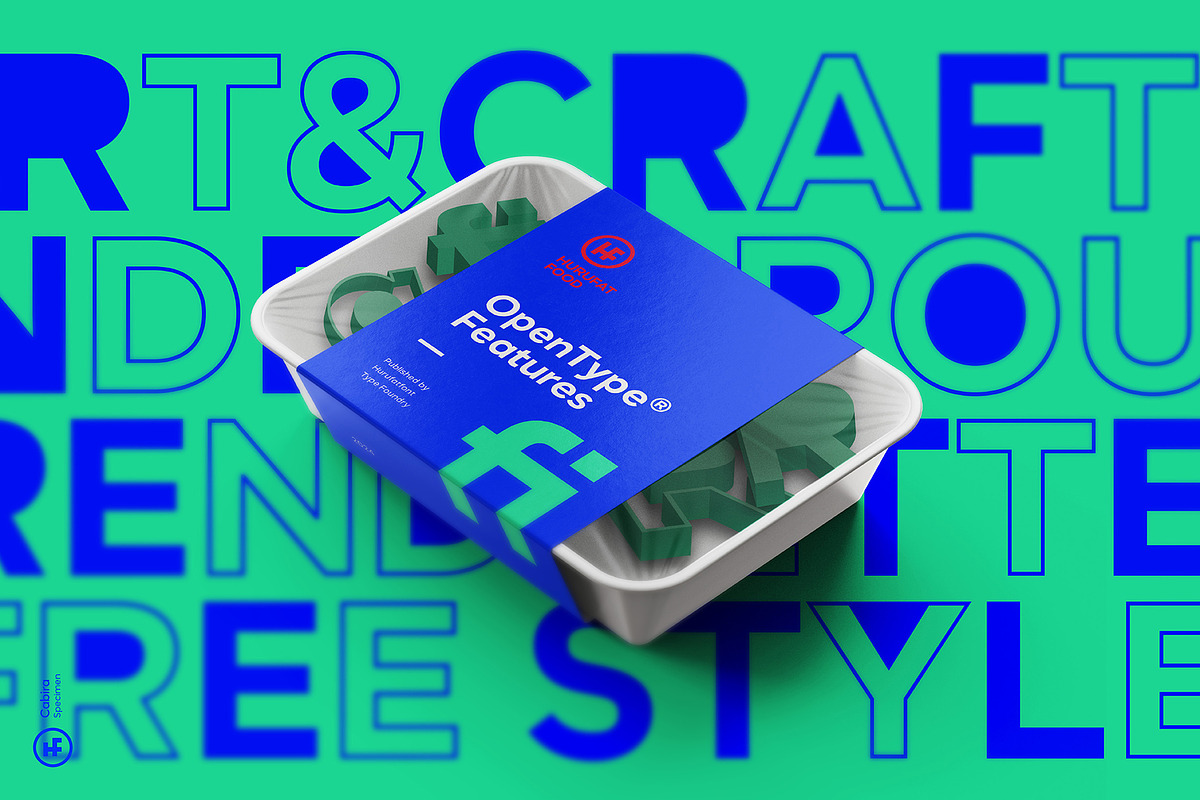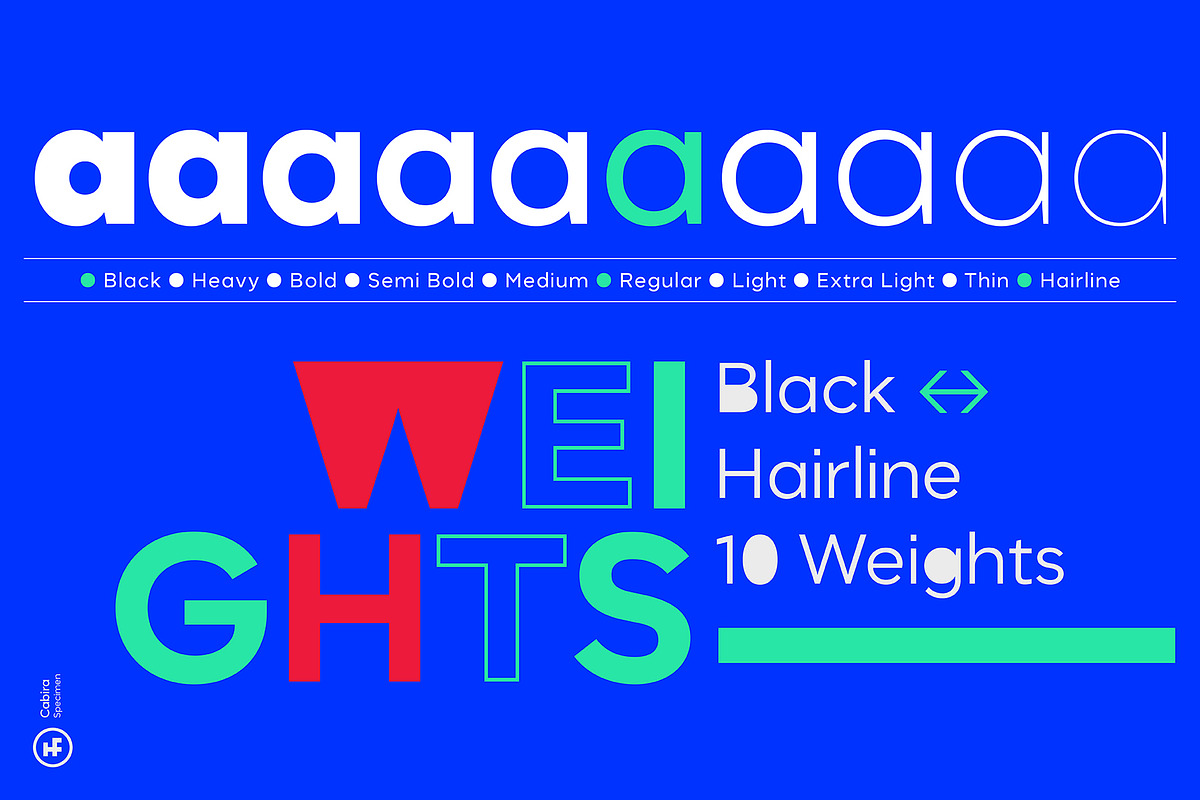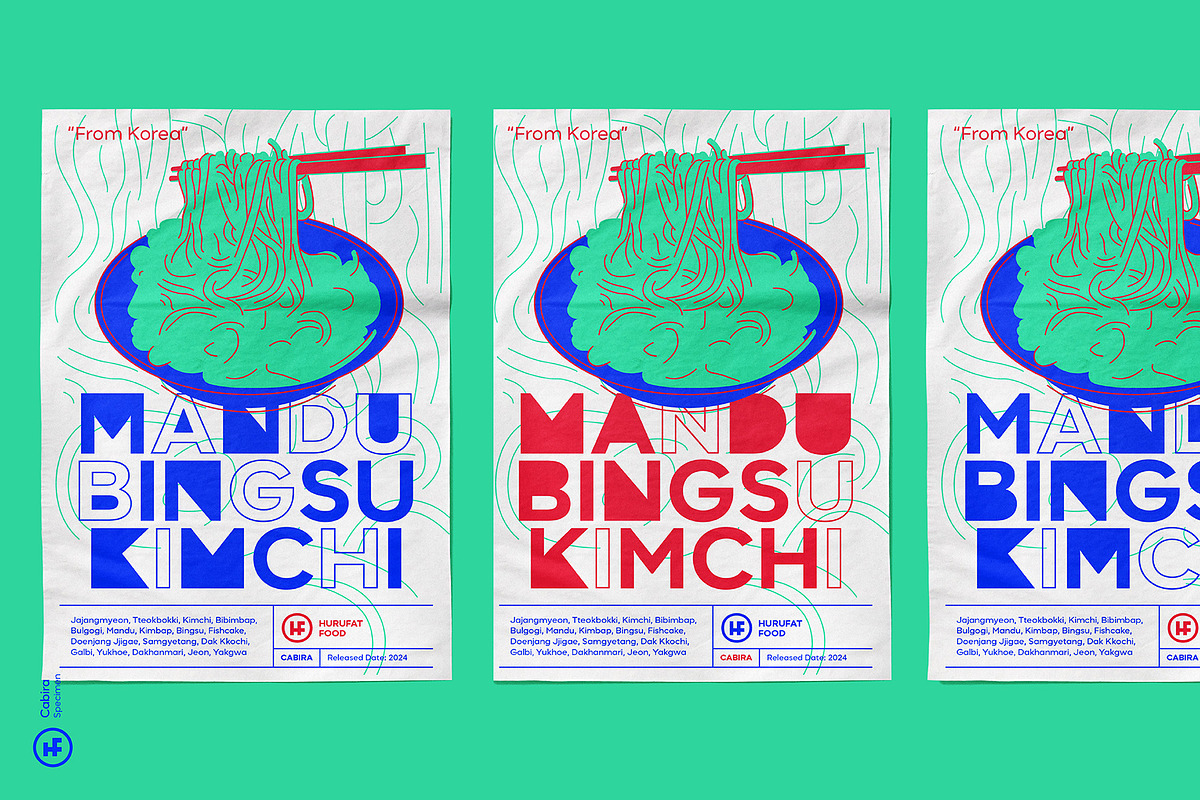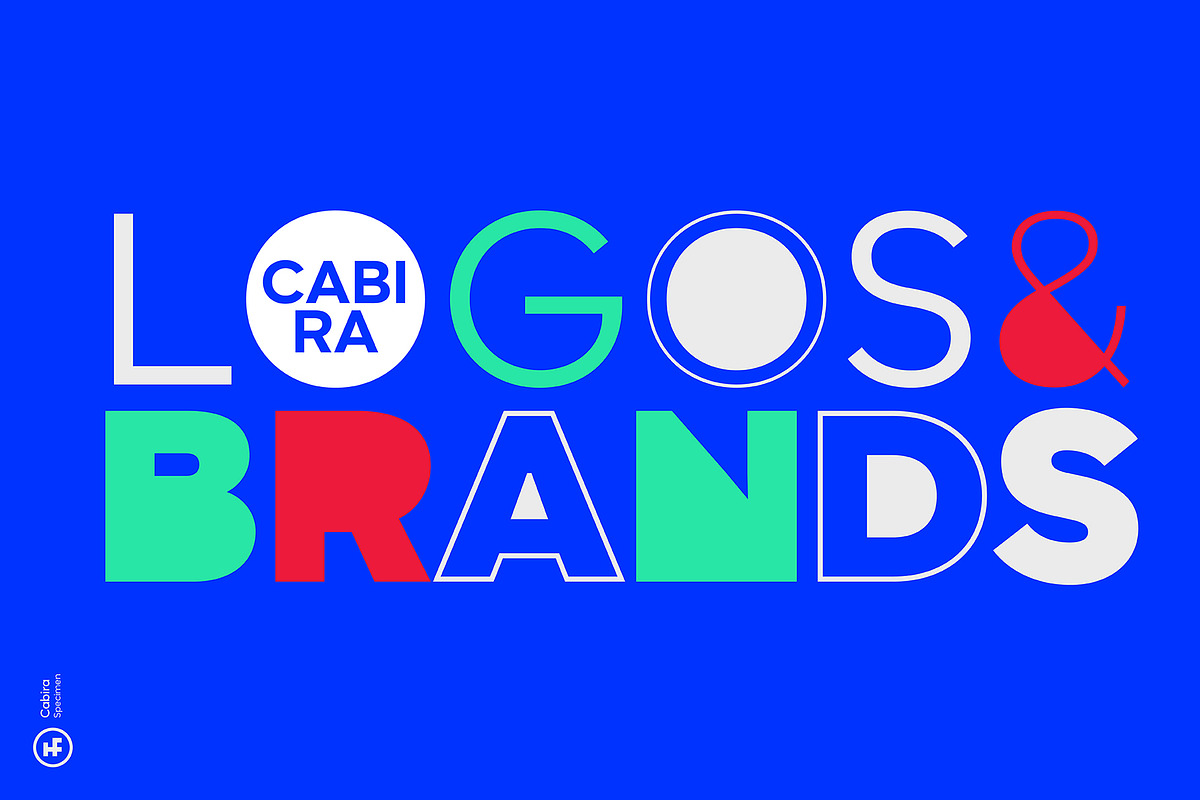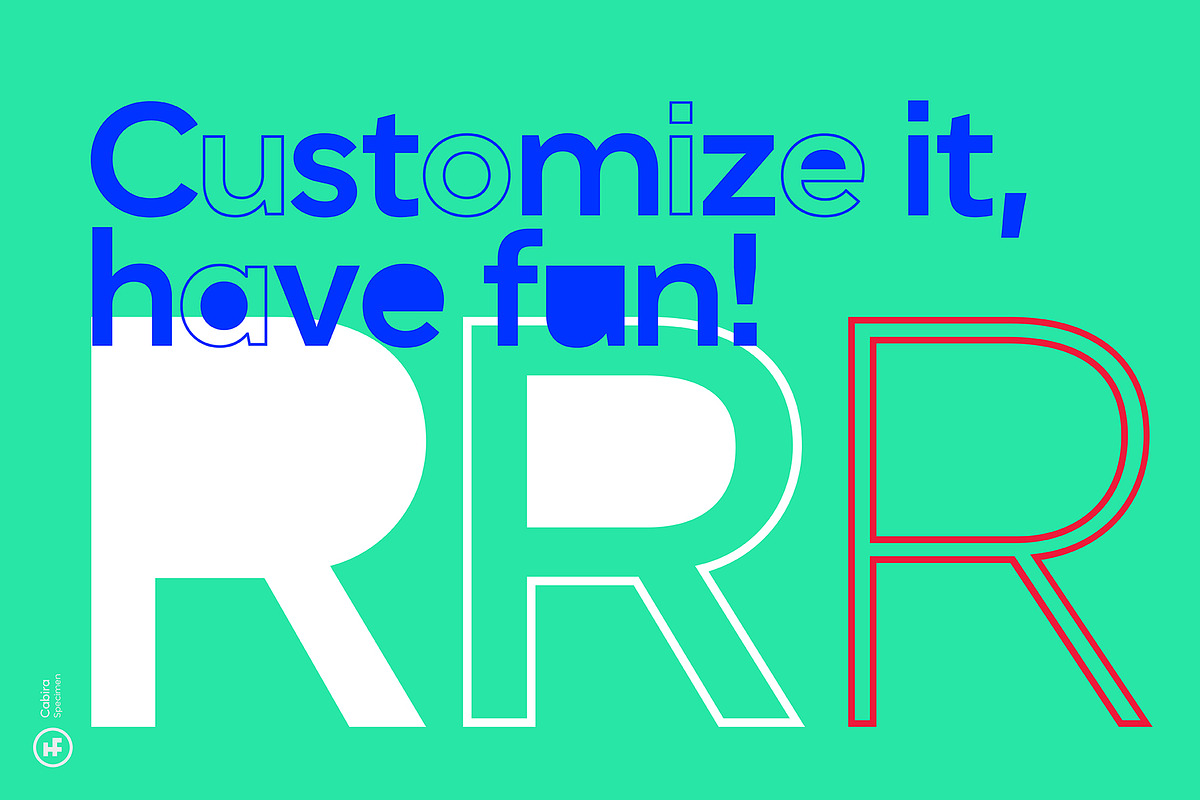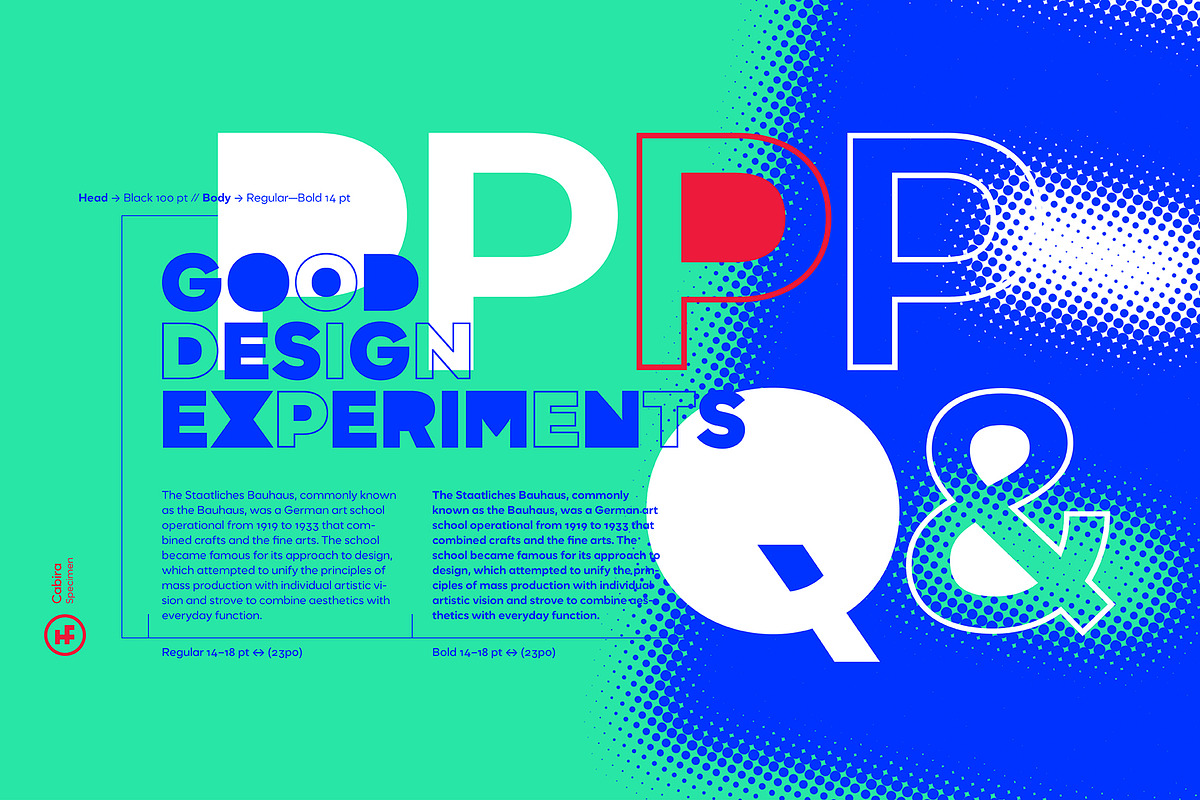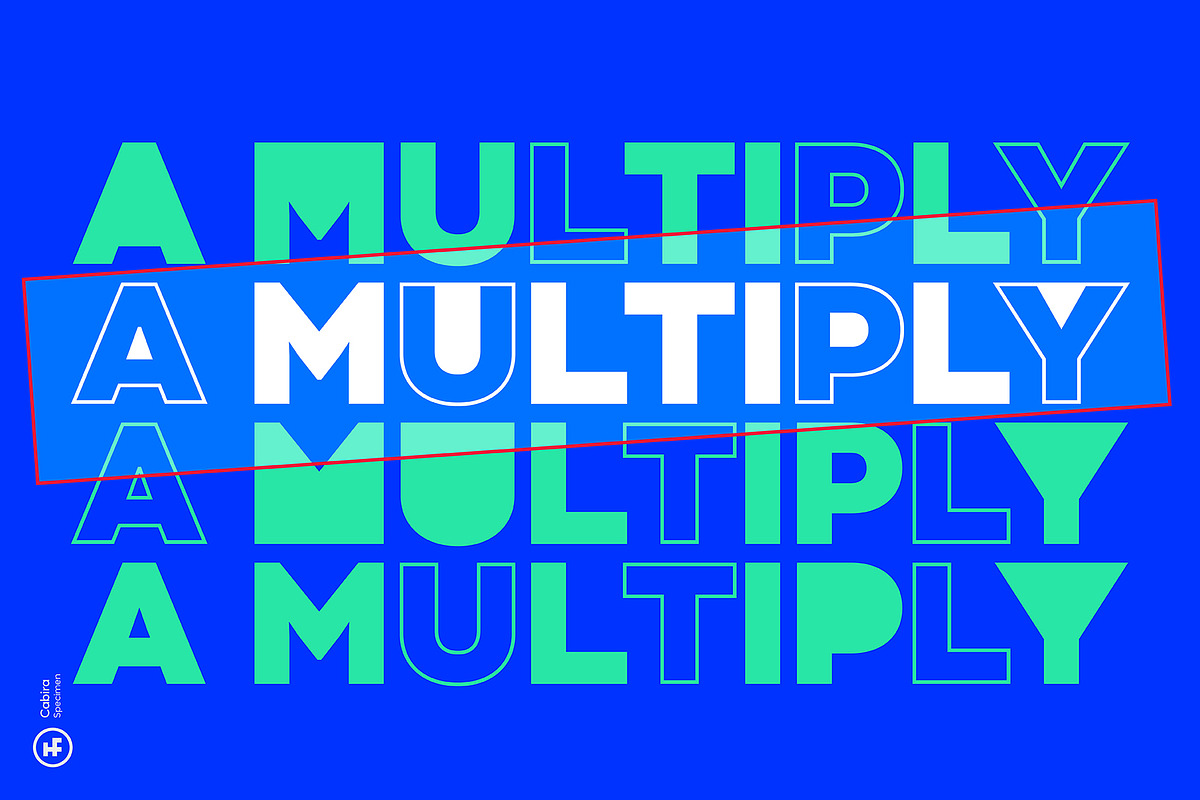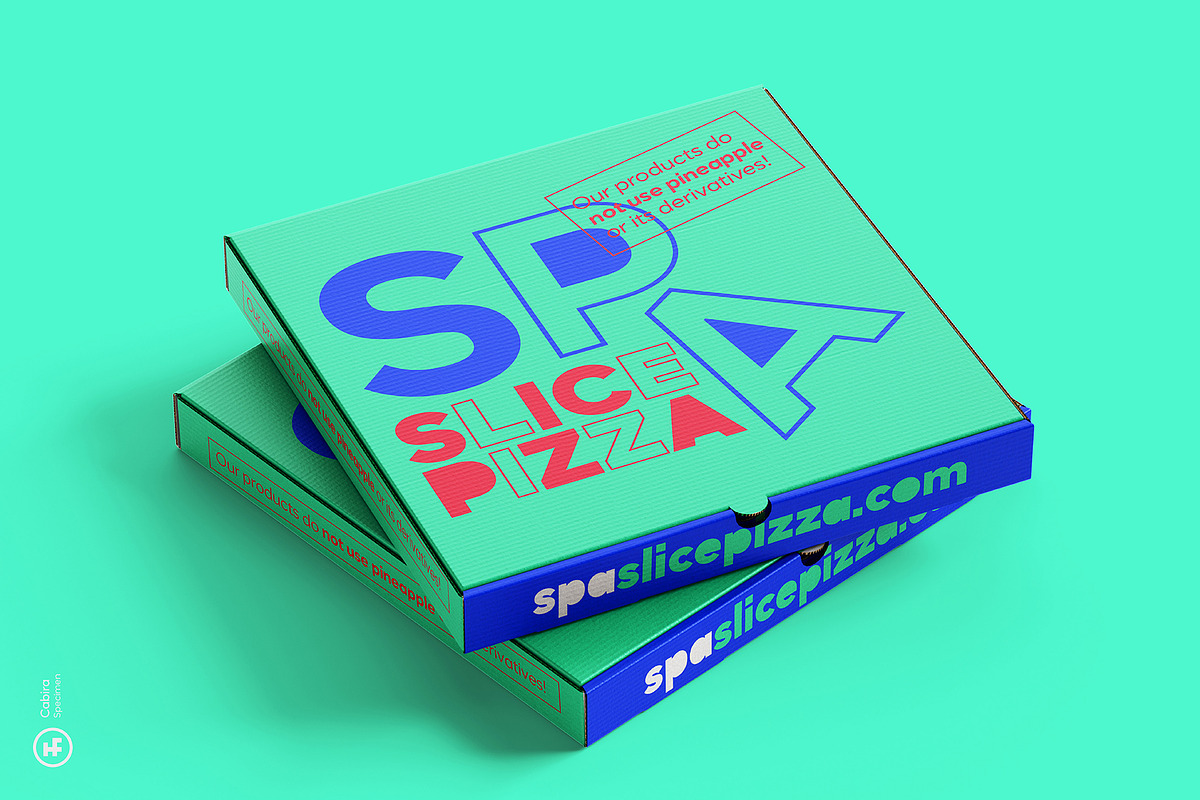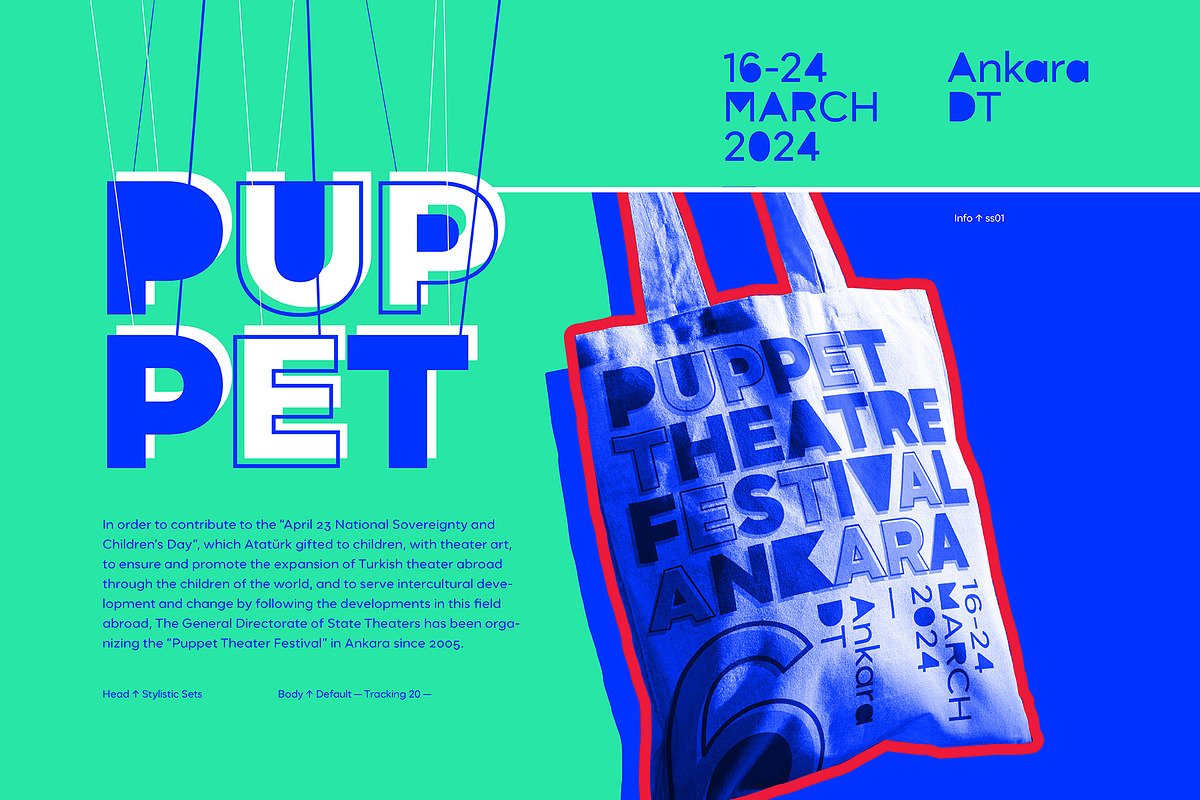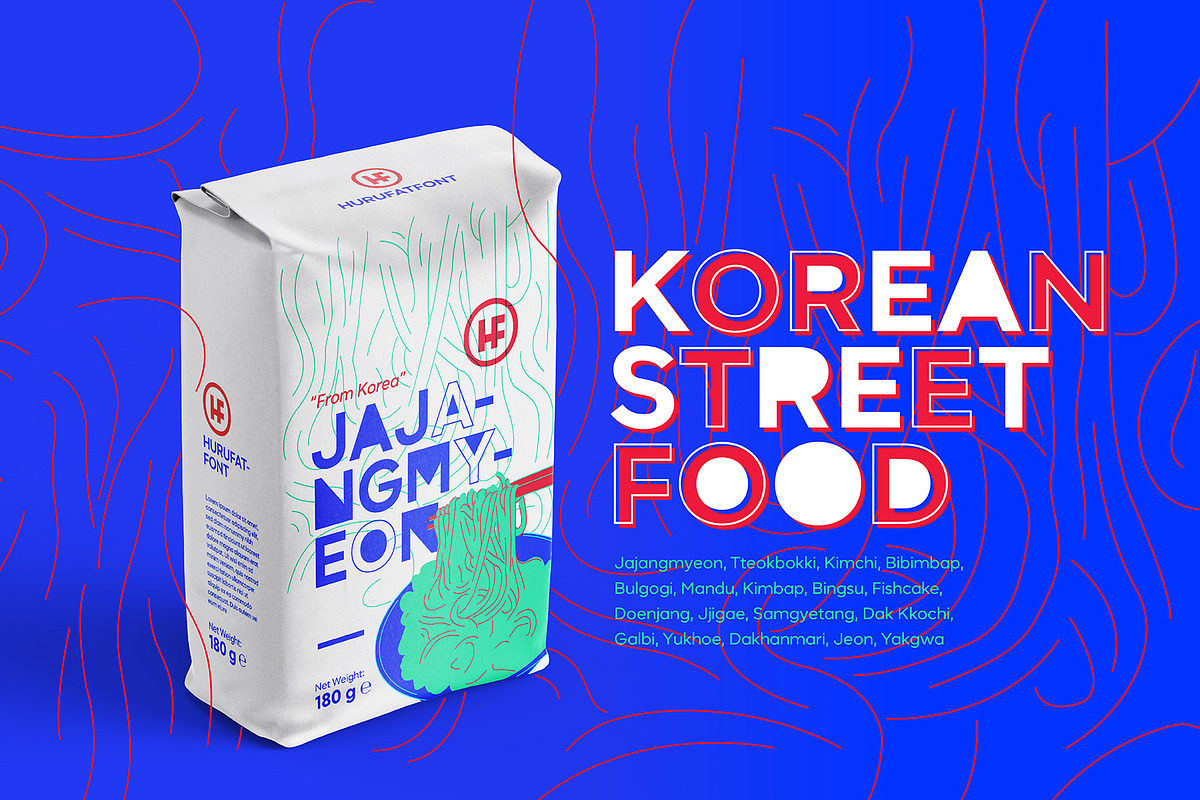
Cabira Sans
The Cabira font family offers rich design alternatives with glyph sets with different stain values as an alternative to the basic glyph set with geometric and neutral anatomy.
It is ideal for both title and text use in areas such as branding, packaging, labels, social and artistic poster designs.